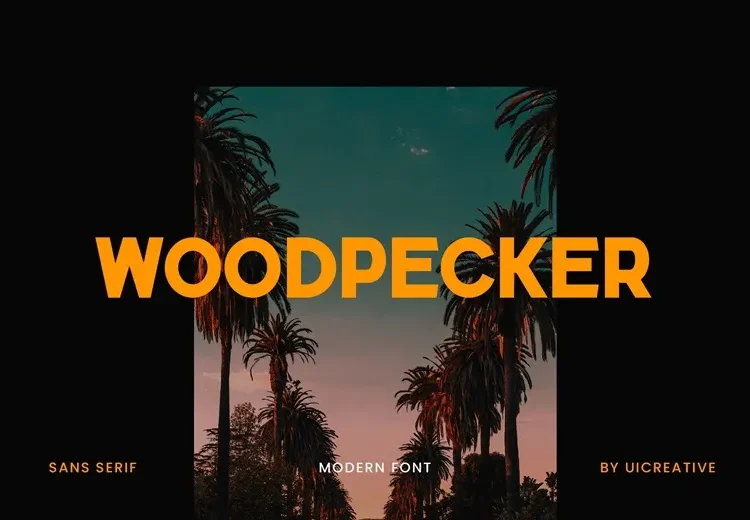
Wooppecker Font
Wooppecker is a clean, bold, and elegant sans-serif typeface with striking versatility. Its streamlined design makes it an exceptional choice for adding sophistication and impact to various projects. Whether you’re creating visionary wedding invitations, elevating art stationery, or designing captivating social media posts, Wooppecker brings a refined touch to each piece.
The stunning versatility of Wooppecker allows it to shine across a range of applications. Its bold, clean lines and elegant curves create a harmonious aesthetic that enhances readability while delivering a memorable impression. Ideal for designers looking for a typeface that’s both stylish and functional, Wooppecker is your go-to for designs that need an extra touch of elegance and clarity.